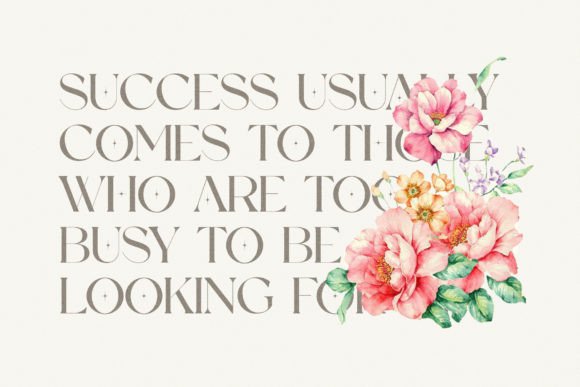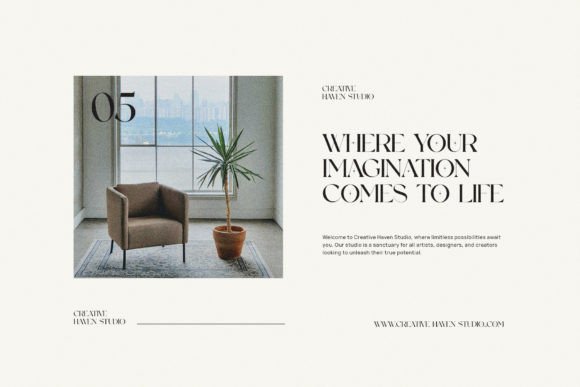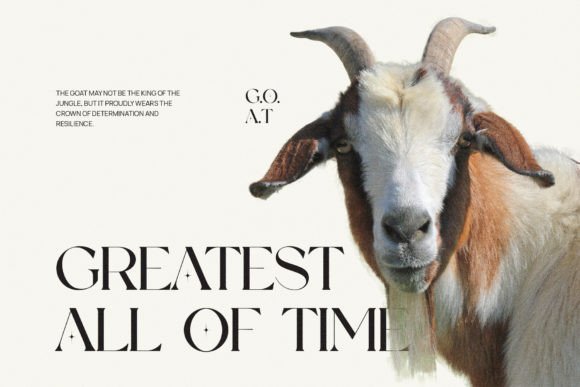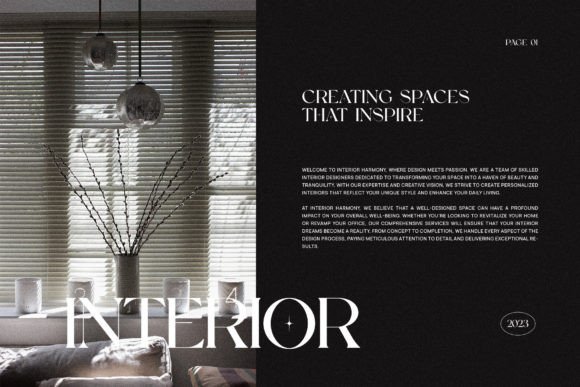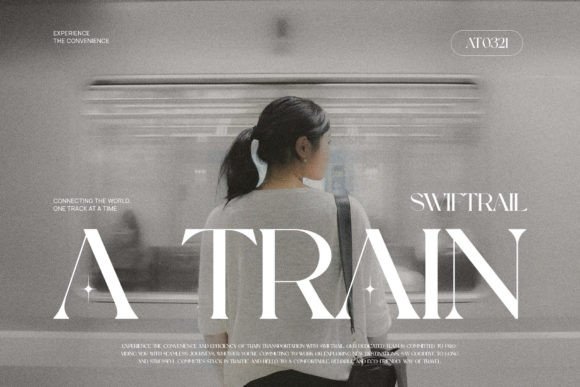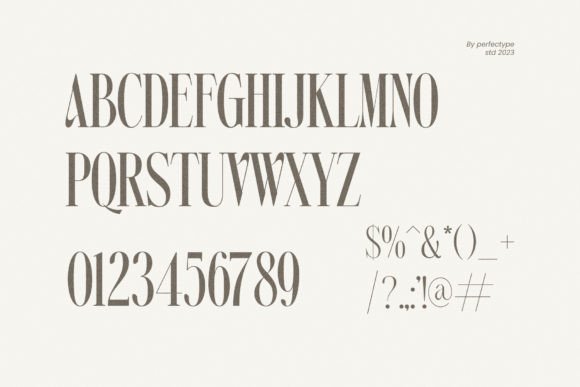
Akova Font: Elevate Your Designs with Elegance and Sophistication
Are you looking for a font that exudes elegance and sophistication for your branding and logo designs? Look no further than Akova Font, a unique and stylish serif typeface that combines classic charm with modern flair. In this article, we’ll explore the features and benefits of Akova Font, and how it can elevate your designs to the next level.
What is Akova Font?
Akova Font is a carefully crafted serif typeface designed to meet the needs of designers and crafters seeking a refined and elegant font for their projects. Its classic serif design is infused with a modern touch, making it perfect for a wide range of applications, from branding and logos to wedding designs, social media posts, and more.
Key Features of Akova Font
- Elegant Serif Design: Akova Font boasts a traditional serif design with a sophisticated twist, making it ideal for projects that require a touch of luxury and refinement.
- Classy and Modern Style: The font’s modern style ensures that it remains fresh and relevant, while its classic roots provide a sense of timelessness.
- High Readability: Akova Font is designed with readability in mind, making it perfect for body text, headings, and titles.
- Versatile: This font is suitable for a wide range of projects, including branding, logos, wedding designs, social media posts, advertisements, product packaging, and more.
Use Cases for Akova Font
Akova Font is an incredibly versatile font that can be used in various design projects, including:
- Branding Projects: Create a lasting impression with Akova Font, perfect for logos, business cards, and brand guidelines.
- Wedding Designs: Add a touch of elegance to your wedding designs, including invitations, programs, and decorations.
- Social Media Posts: Elevate your social media presence with Akova Font, suitable for Facebook, Instagram, Twitter, and more.
- Advertisements: Create eye-catching ads with Akova Font, perfect for print, digital, or online advertising.
- Product Packaging: Add a touch of sophistication to your product packaging with Akova Font.
- Labels and Photography: Use Akova Font for labels, watermarks, and photography projects that require a elegant touch.
- Invitations and Stationery: Create beautiful invitations, stationery, and greeting cards with Akova Font.
Why Choose Akova Font?
Akova Font offers a unique combination of elegance, sophistication, and versatility, making it an excellent choice for designers and crafters. Here are some reasons why you should consider Akova Font for your next project:
- Unique Design: Akova Font’s distinctive design sets it apart from other fonts, ensuring that your projects stand out.
- High-Quality: This font is crafted with attention to detail, ensuring a high level of quality and consistency.
- Easy to Read: Akova Font’s readability makes it perfect for body text, headings, and titles.
- Flexible: Use Akova Font in various design projects, from print to digital, and across different industries.
Akova Font is an exceptional choice for designers and crafters seeking a elegant and sophisticated font for their branding and logo designs. Its unique blend of classic and modern styles, combined with its high readability and versatility, make it an excellent addition to any design project. Whether you’re working on branding projects, wedding designs, social media posts, or product packaging, Akova Font is sure to elevate your designs to the next level.